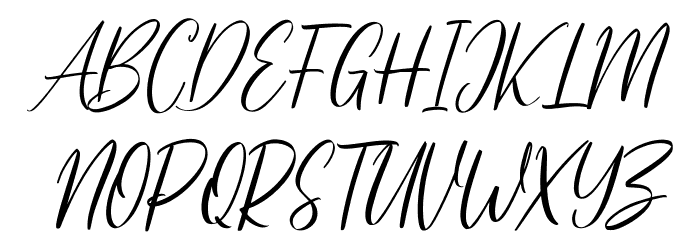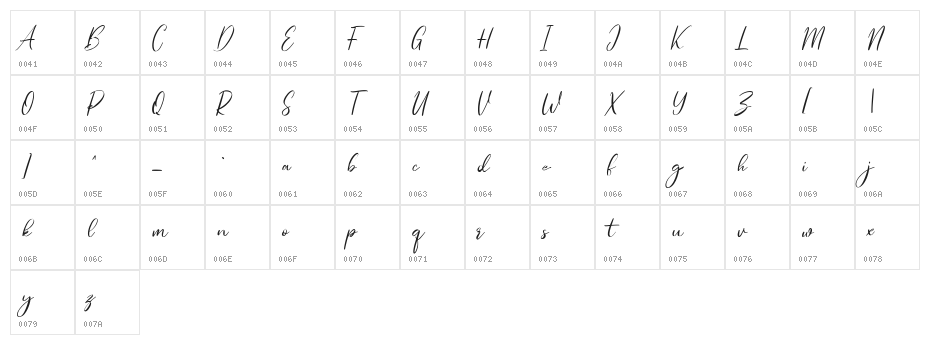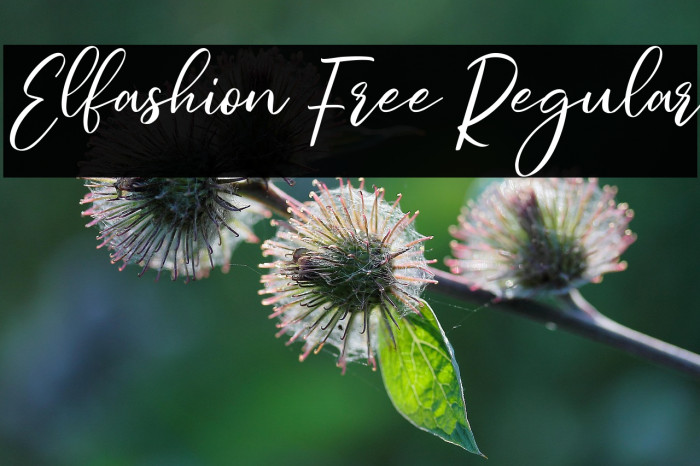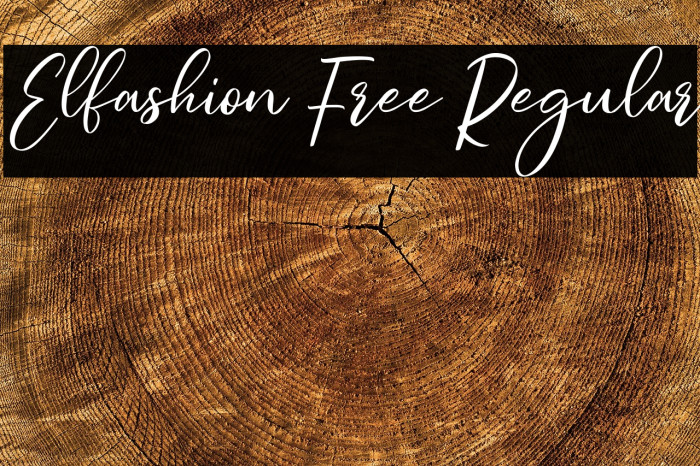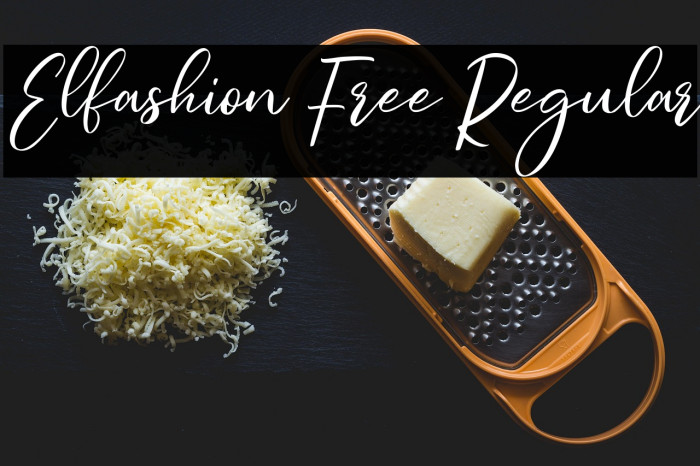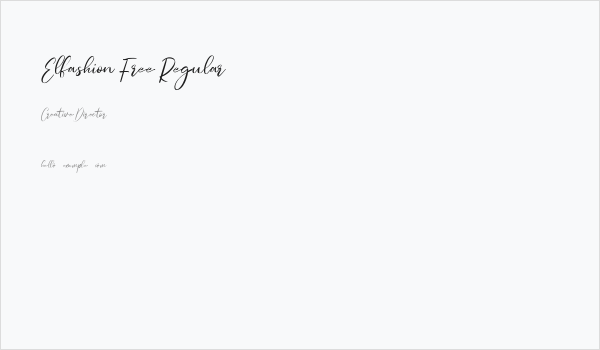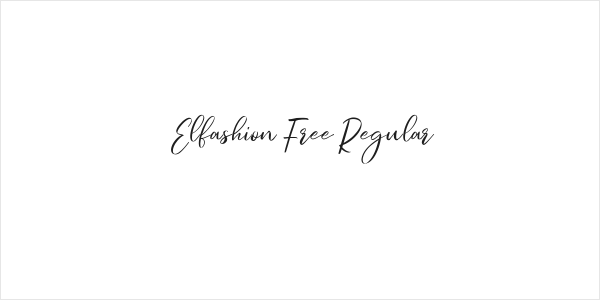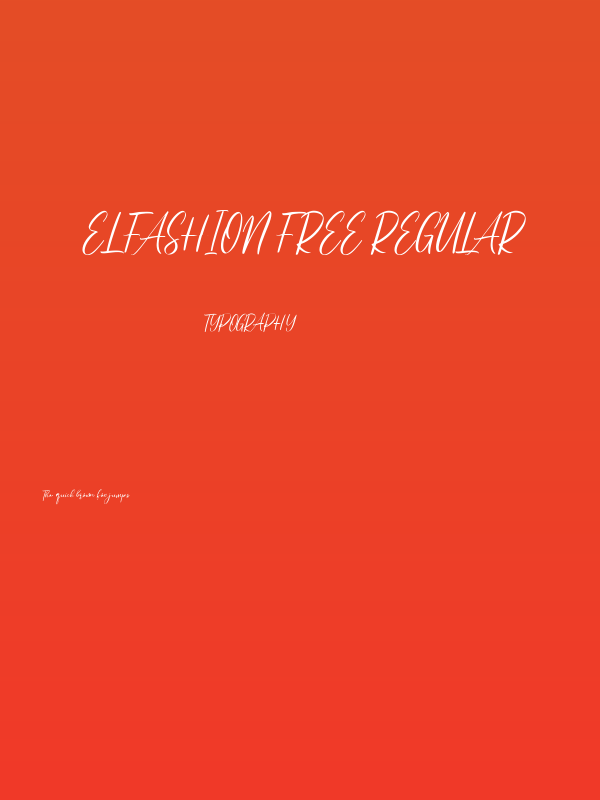
Elfashion Free Regular Font
Elfashion Free Regular Description
This font features an elegant and flowing script style, characterized by its smooth and connected letterforms. The uppercase letters are bold and sweeping, with a sense of movement and grace. The lowercase letters maintain a consistent flow, adding a touch of sophistication and charm. The overall design is both stylish and legible, making it suitable for a variety of creative projects. The font's cursive nature gives it a personal and handwritten feel, perfect for adding a touch of elegance to any design.
| Proposed Projects | Ideal for wedding invitations, branding, greeting cards, and elegant packaging designs. |